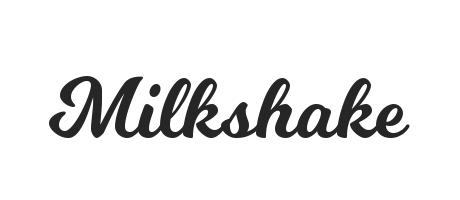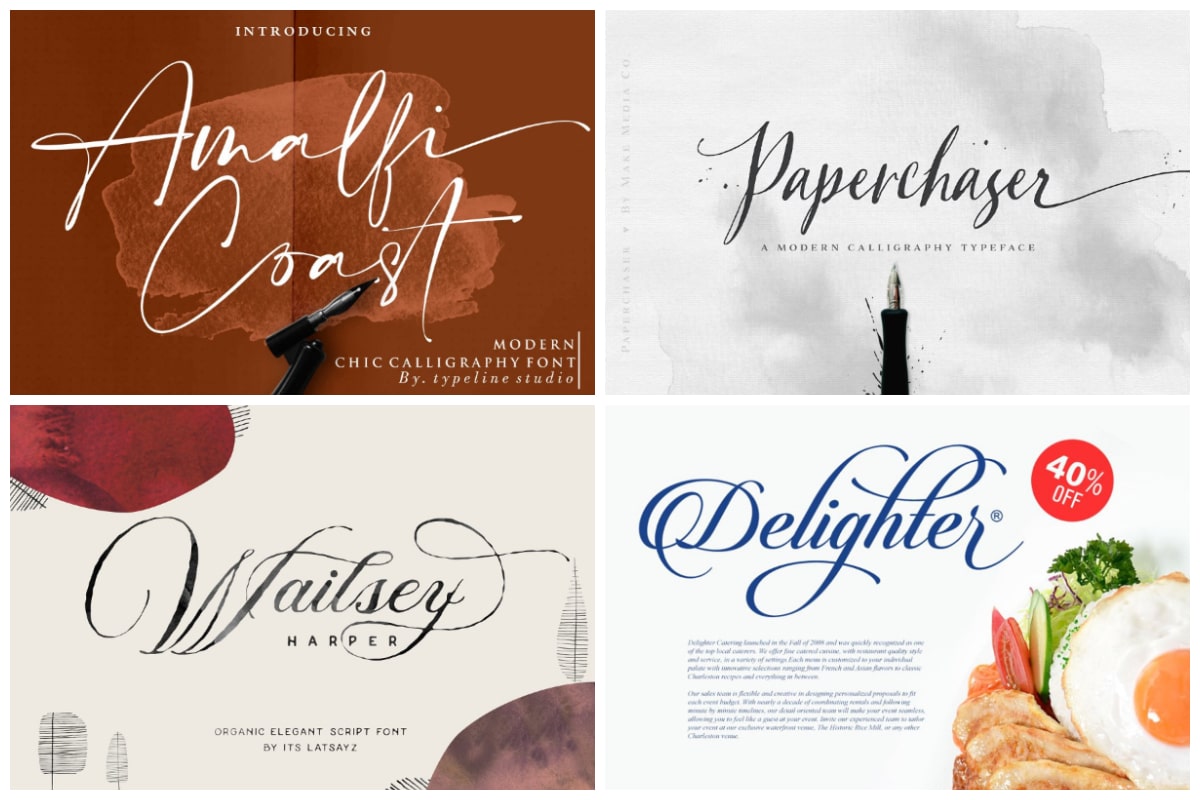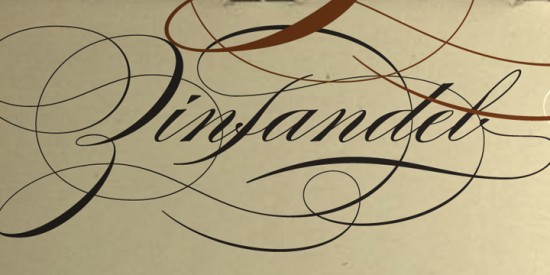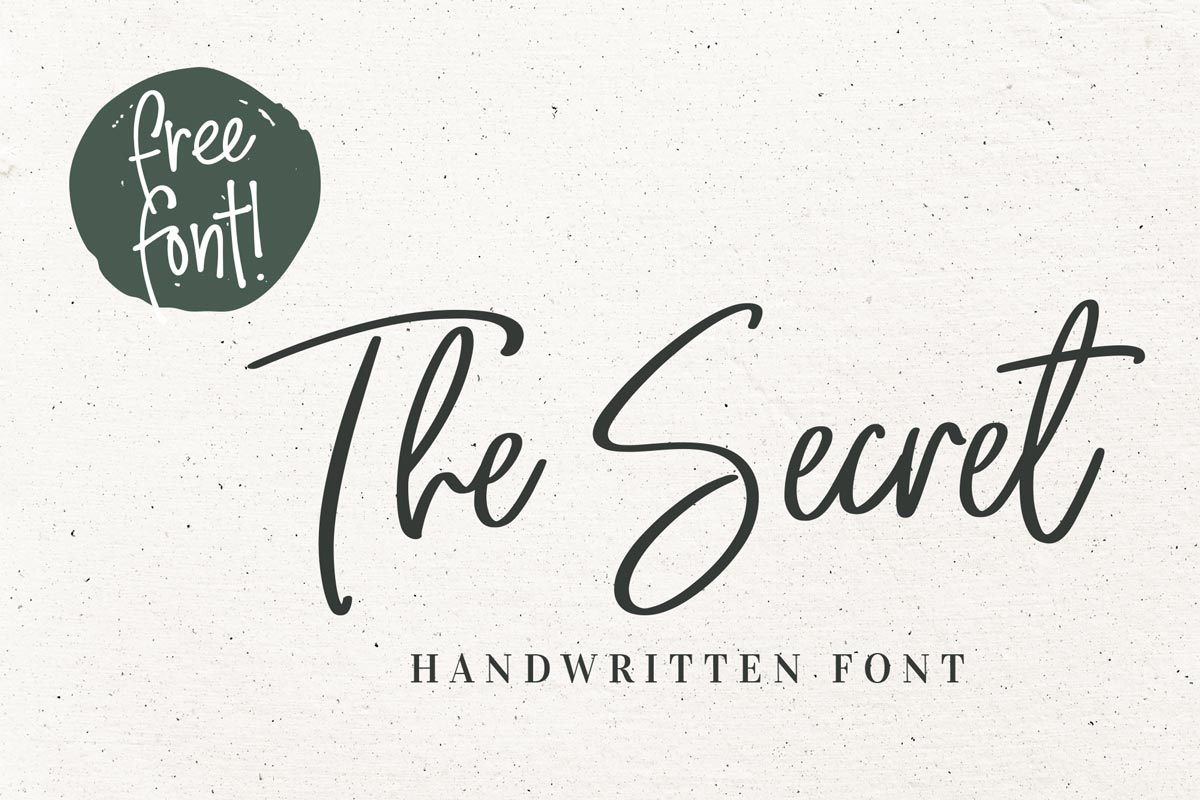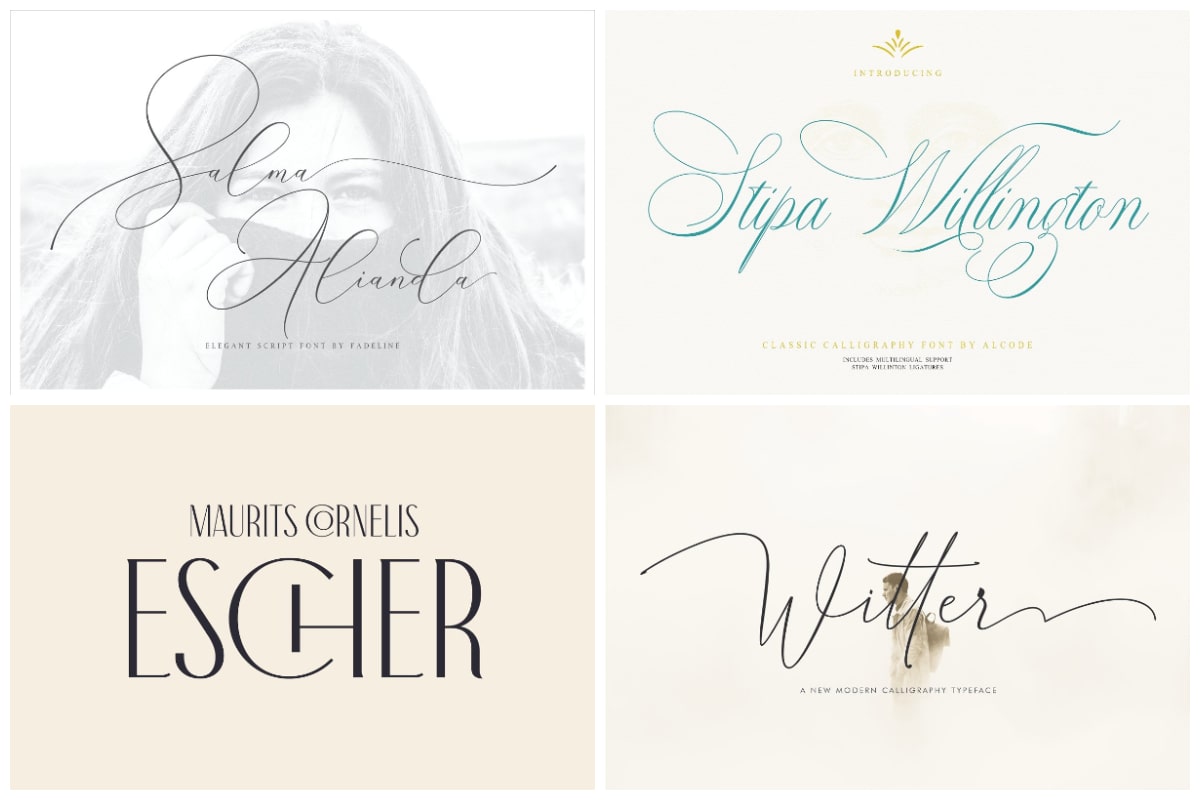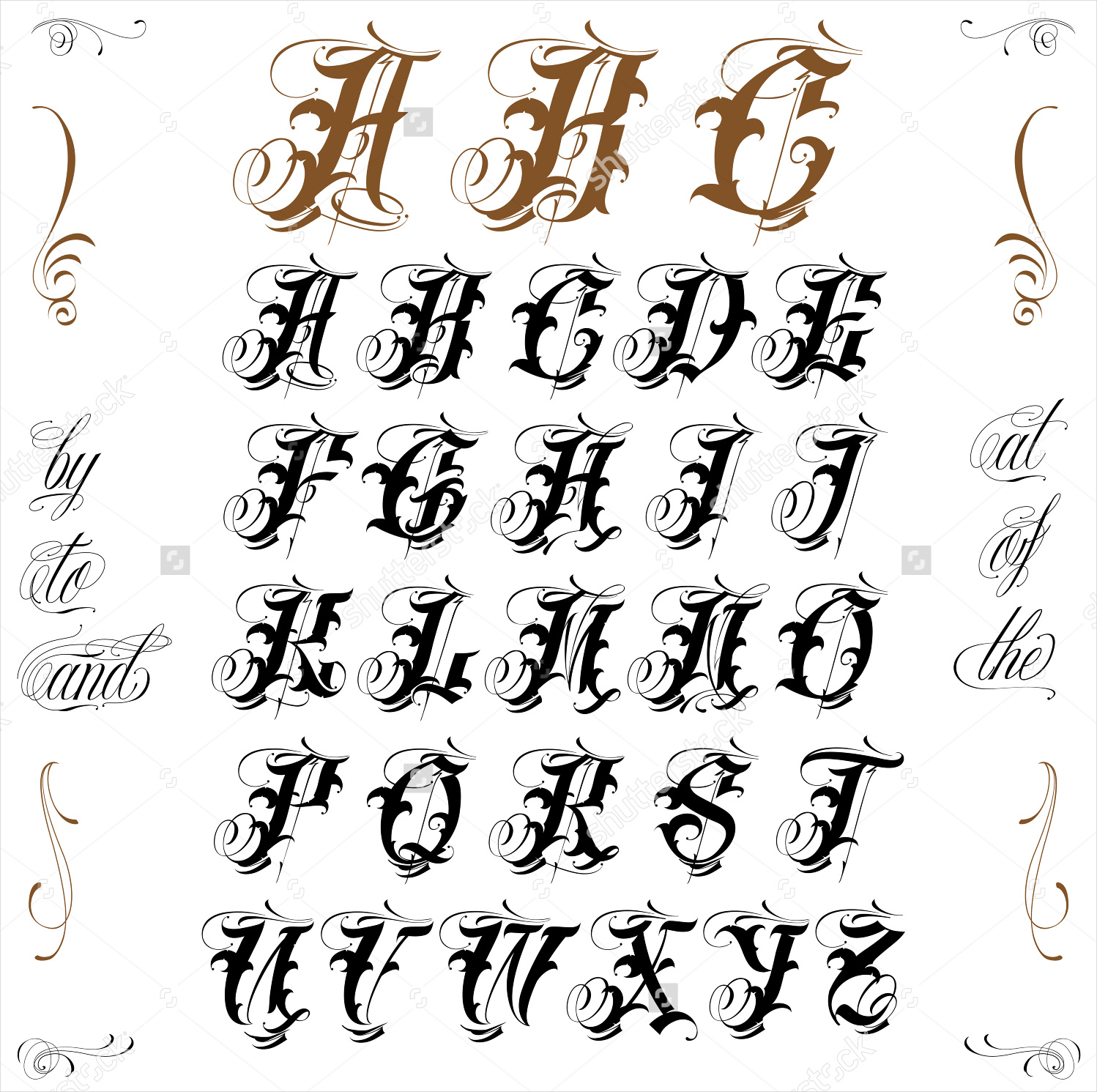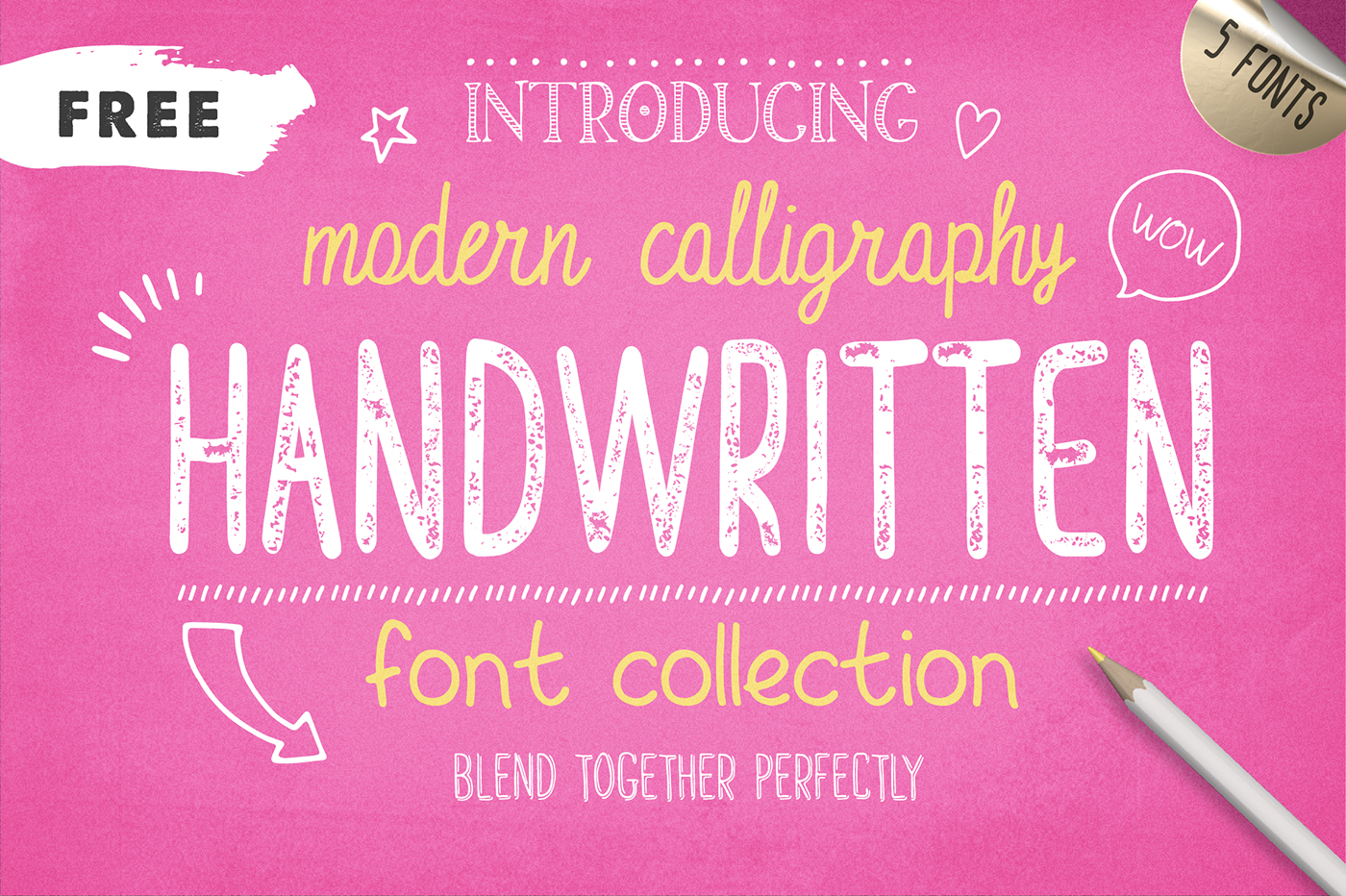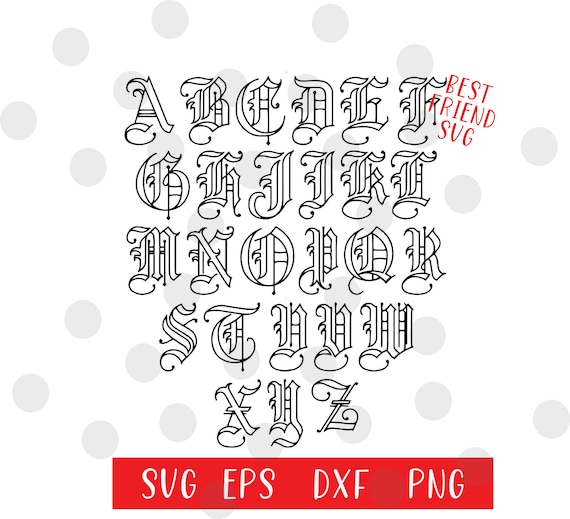
45 Free Hand Made And Calligraphy Fonts
We offer fast servers so you can Download Calligraphy Fonts and get to work quickly. Free licenses for commercial use Direct font downloads Mac Windows Linux. Calligraphy is an artistic writing style where the pressure is varied to create thick and thin lines all in a single stroke.
It usually involves a nibbed pen or brush. Categories popular designers optional web font download and links to similar fonts. Browse dozens of font categories such as calligraphy handwriting script and more.
Looking for Old English Calligraphy fonts. The Fonts in Use section features posts about fonts used in logos films TV shows video games books and more. The writing is readable but is usually extravagant and embellished with flourishes.
The height of calligraphy was reached in the middle age where monks developed the narrow writing style called gothic allowing more words to fit on a single line as paper was expensive at the time. How To Choose The Right Font Comic Sans Brush Script Lucida Calligraphy. Pin By Florencia Bedrosian On Fuentes Tattoo Lettering Styles Cursive Tattoos Best Tattoo Fonts.
The main sub-styles are traditional calligraphy and modern. Calligraphy - Free Download Over 20000 English Fonts. The most common calligraphy font download material is.